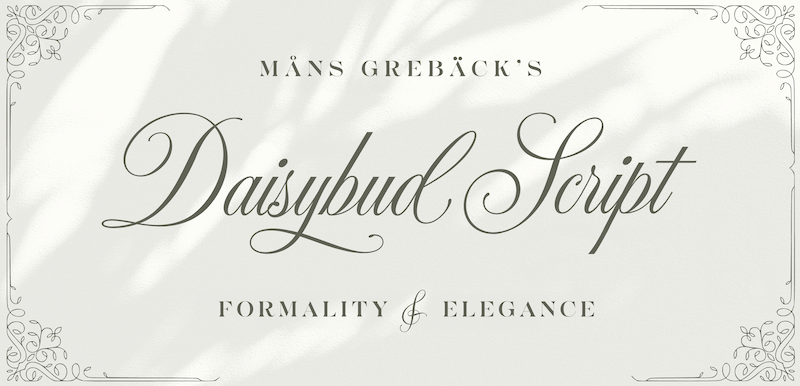
NOTE: This font is for PERSONAL USE ONLY! To purchase a commercial license, visit: https://www.mansgreback.com/product/daisybud-script Daisybud Script is a modern interpretation of an elegant and flourishing typeface. The font has an fine, airy feel and with long, flowy connections, created for delicate headlines, a intricate logotypes or a custom invitation card for a beautiful event. There is a calm and soft vibe to the swirly lines, adding to the sophistication. For questions, please visit www.mn.sg/faq |